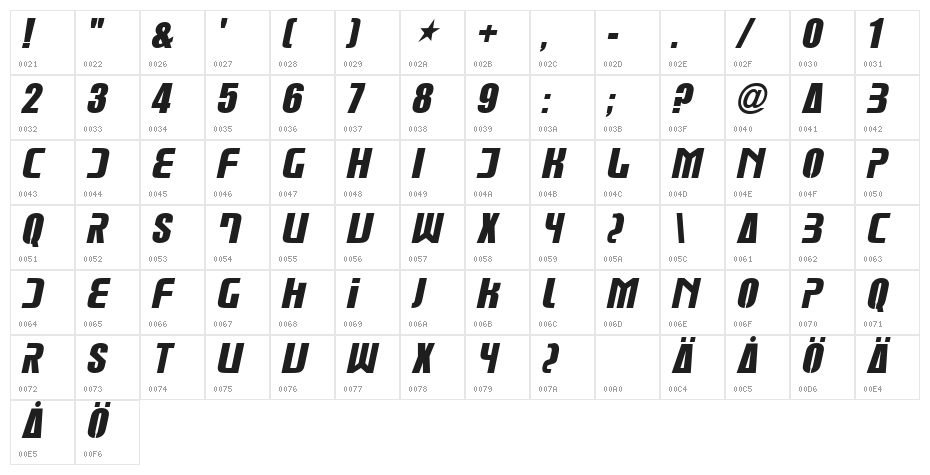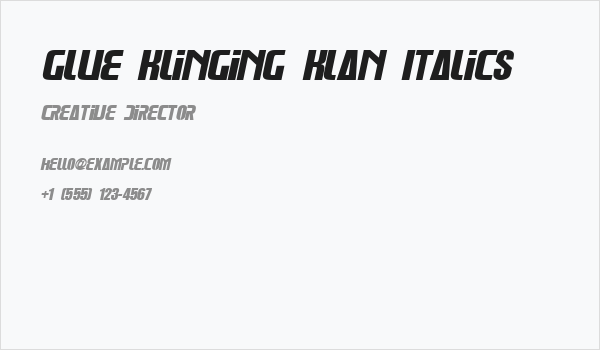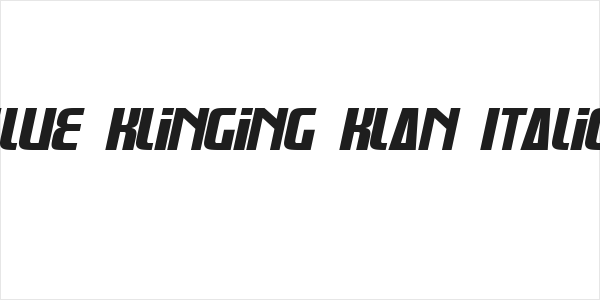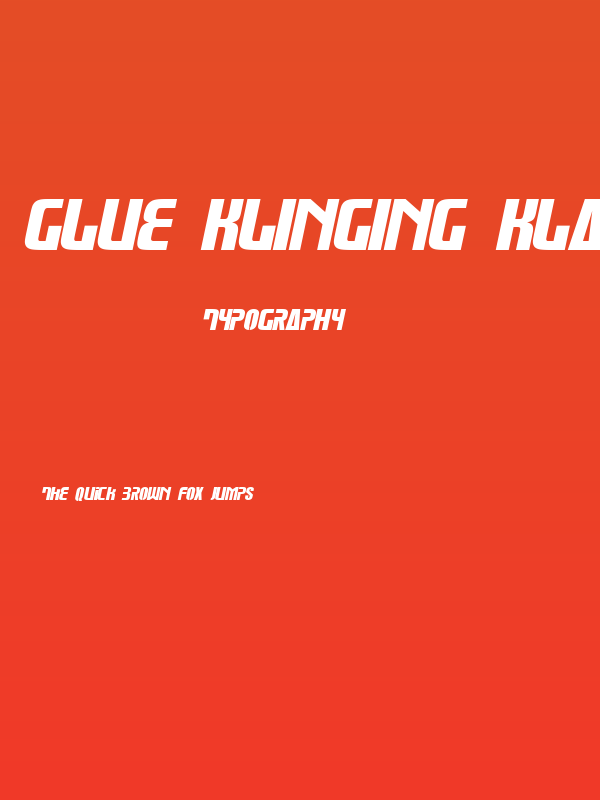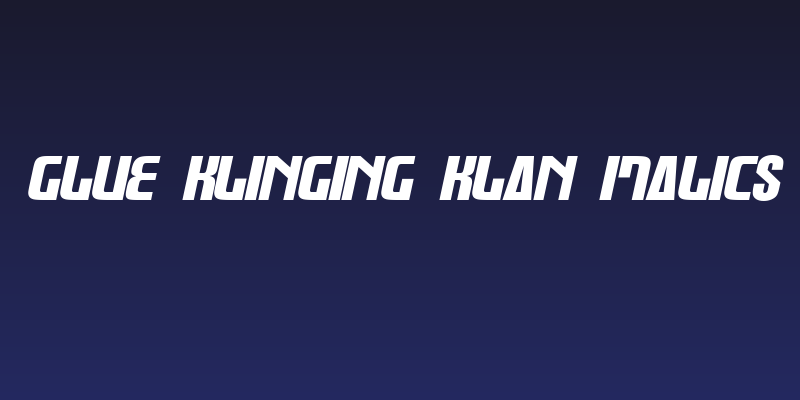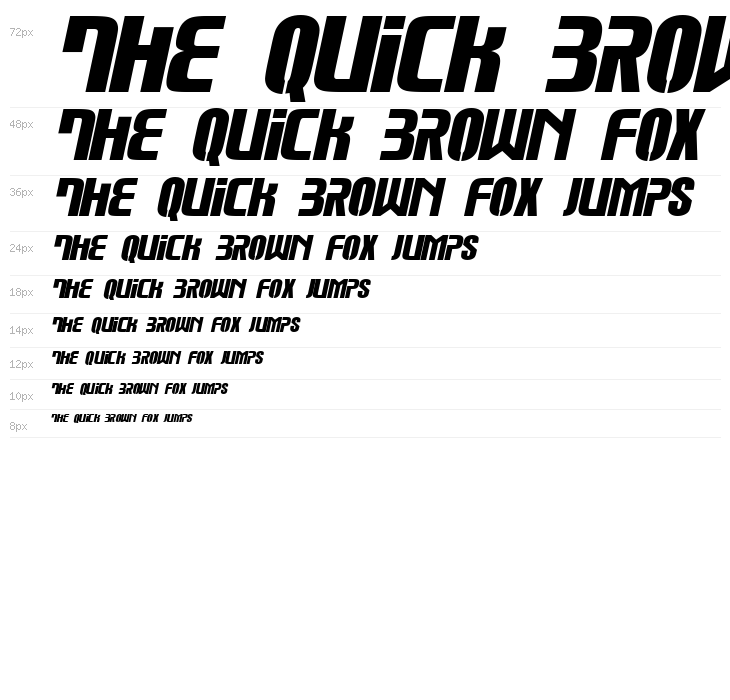
Glue Klinging Klan Italics Font
Glue Klinging Klan Italics Description
This font exhibits a bold and dynamic style with a strong italic slant, giving it a sense of motion and energy. The characters are wide and have a consistent thickness, contributing to a robust and impactful appearance. The angular edges and sharp corners enhance its modern and edgy look, making it suitable for attention-grabbing designs. The uppercase and lowercase letters maintain a uniform style, while the numerals and special characters are designed to complement the overall aesthetic. The font's boldness and slant make it ideal for projects that require a strong visual presence.
| Proposed Projects | Ideal for sports branding, dynamic posters, and modern advertising campaigns. |